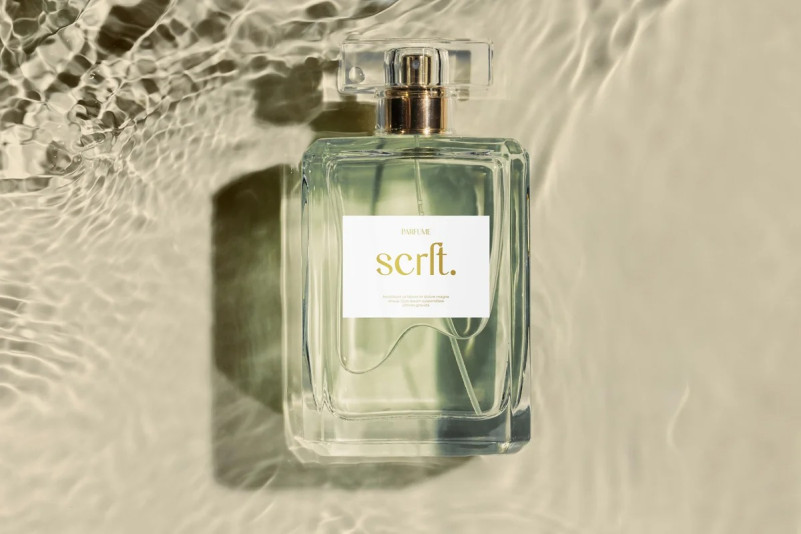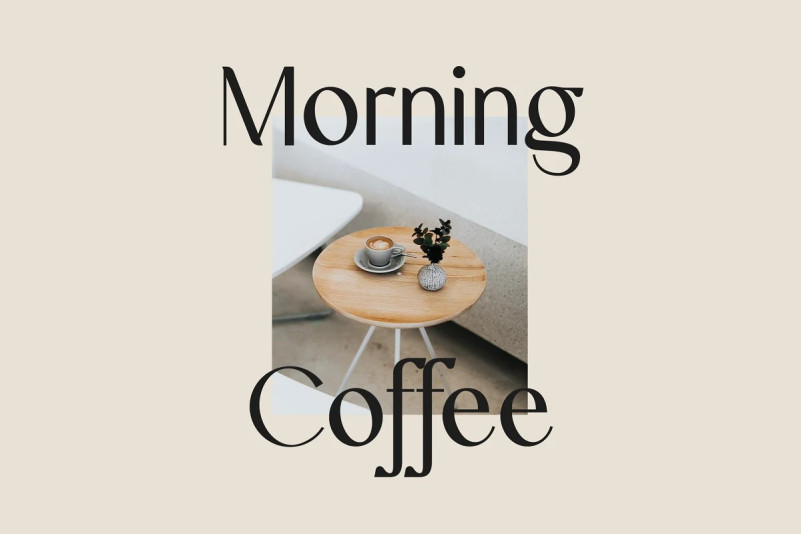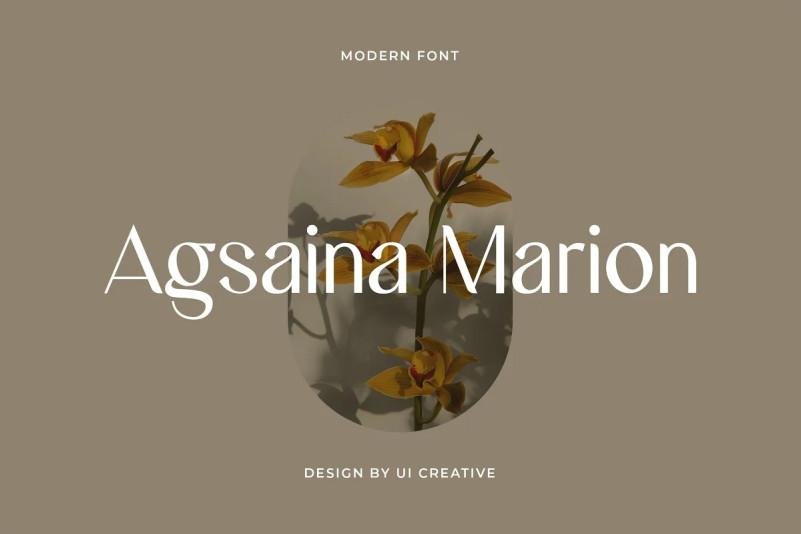
Agsaina Marino Font
Agsaina Marino Font – Modern Serif font that feels beautiful classy, elegant, and modern. This font is ideally suited for a wide variety of projects, such as signature, stationery, logo, wedding, typography quotes, magazine or book covers, website headers, clothing, branding, packaging design, and more. Also, fashion-related branding or editorial design displays both masculine and feminine qualities.